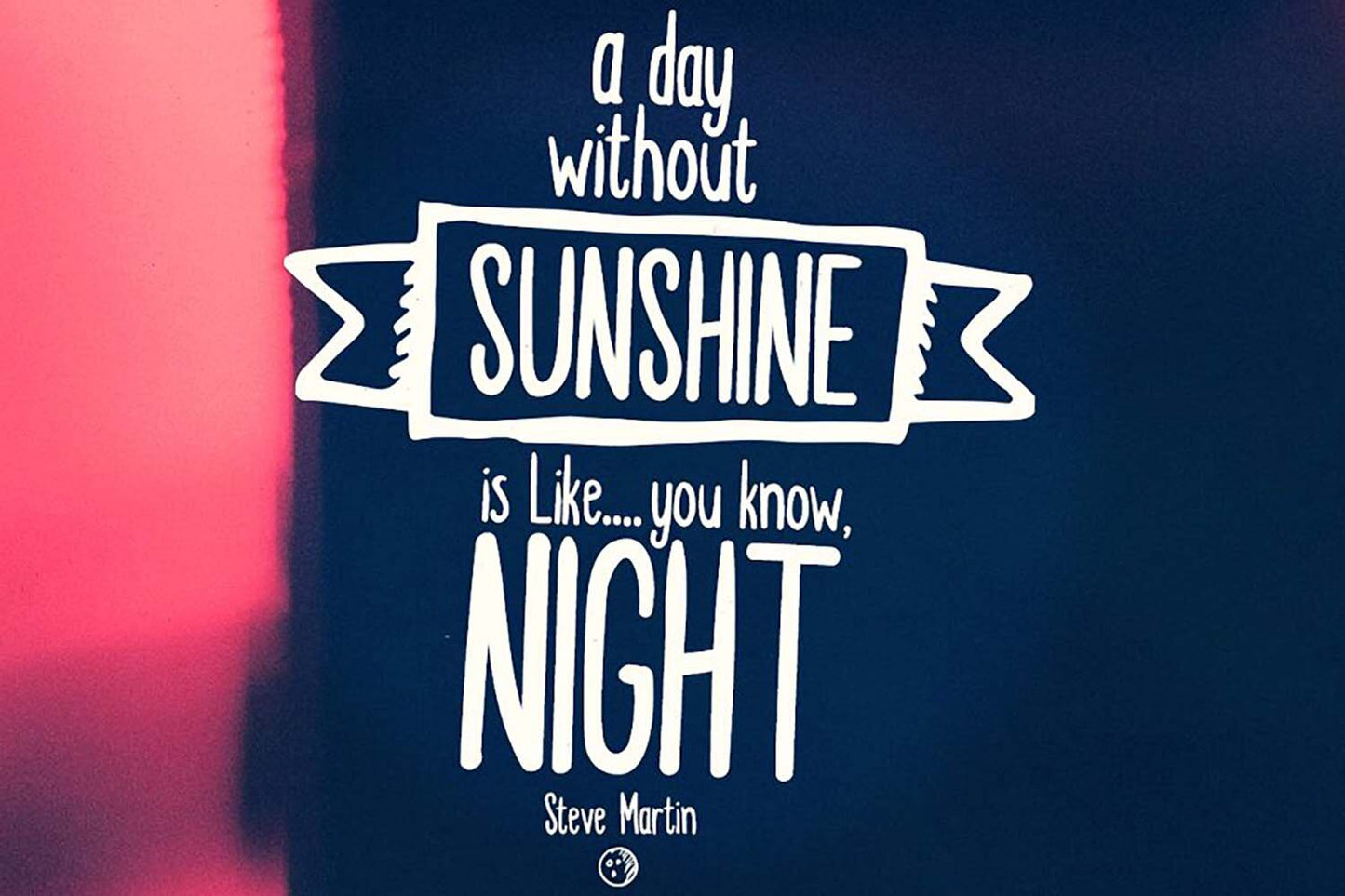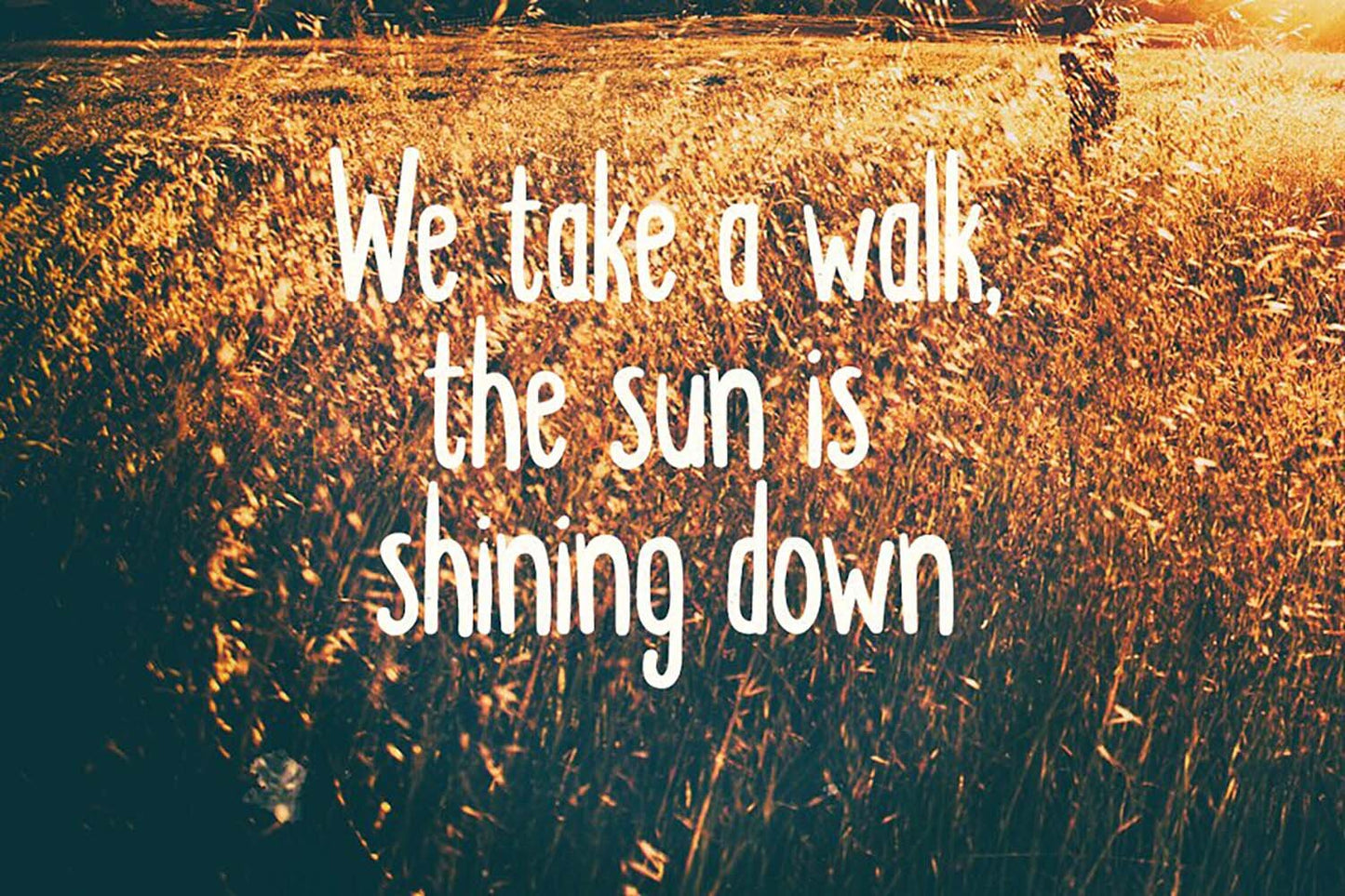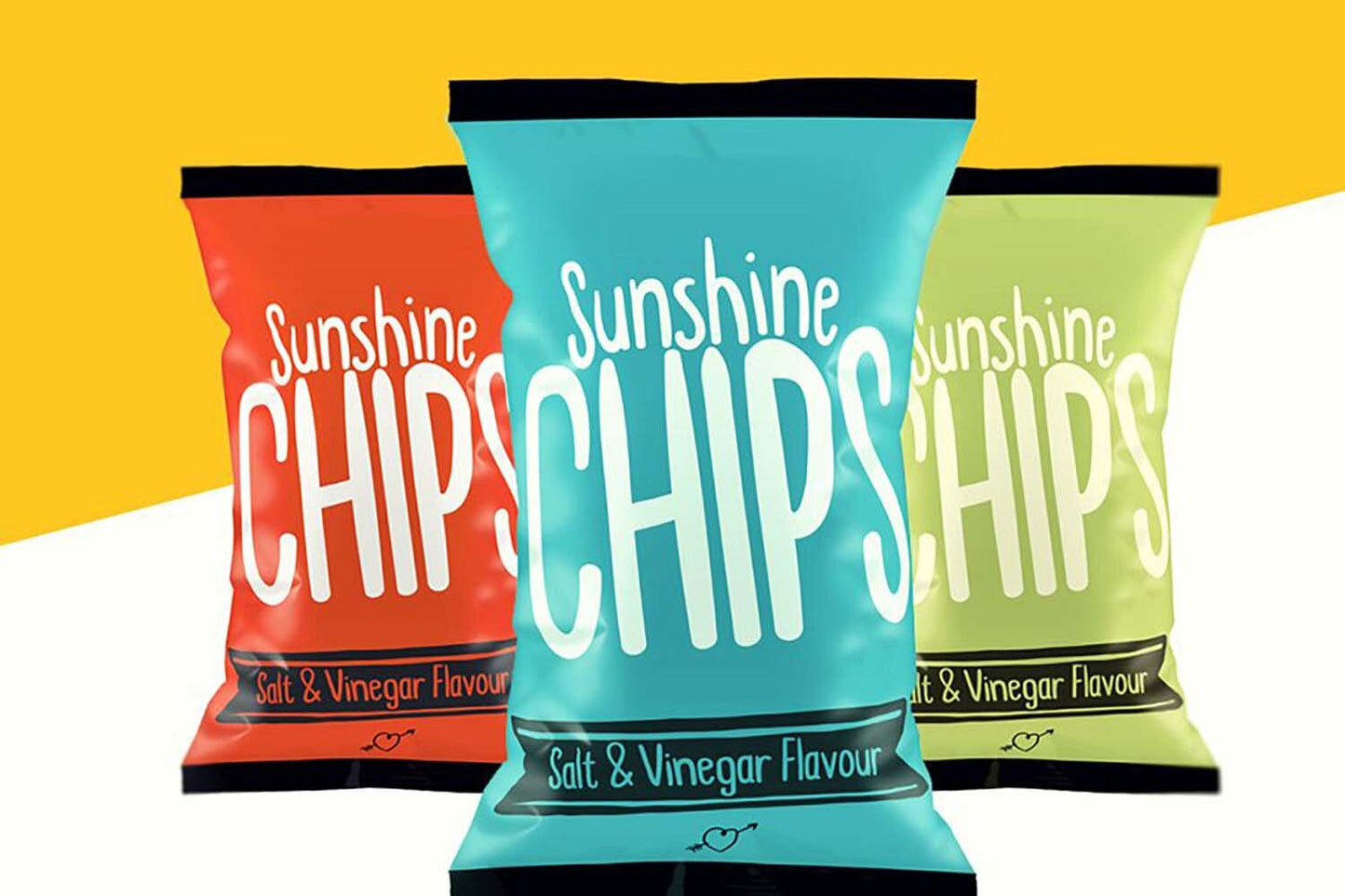
Sunshine
About Sunshine
Sunshine was hand drawn in Adobe Illustrator, it's a delightful celebration of whimsy and individuality. Each character in Sunshine radiates a sense of playfulness. Its slightly uneven lines and organic shapes mimic the strokes of a brush.
Whether used for greeting cards, posters, or branding, this font infuses a sense of joy and authenticity into every letter, making it a perfect choice for projects that aim to capture the spirit of optimism and creativity.
If the Sunshine font were a celebrity
If the Sunshine font were a celebrity, it would embody the exuberance and charisma of someone like Ellen DeGeneres. This font radiates positivity and friendliness, just as Ellen is known for her infectious laughter and uplifting personality.